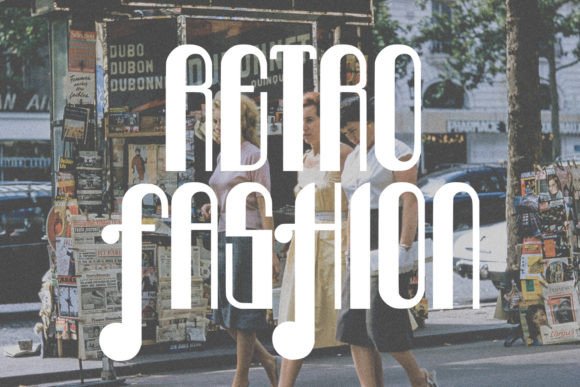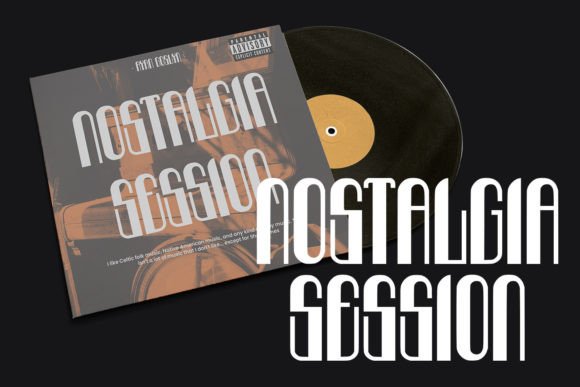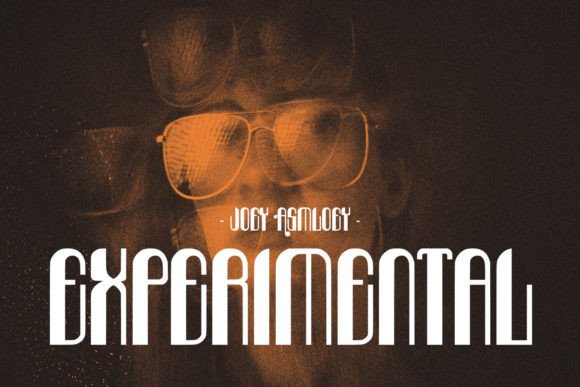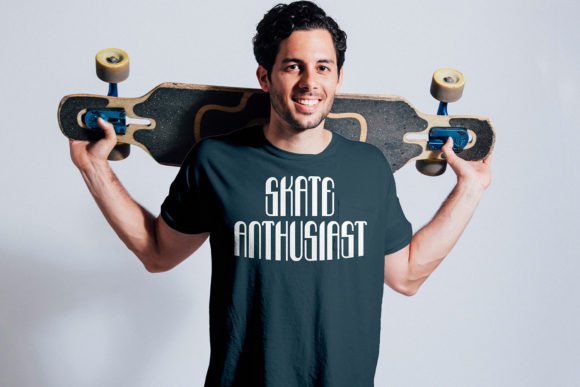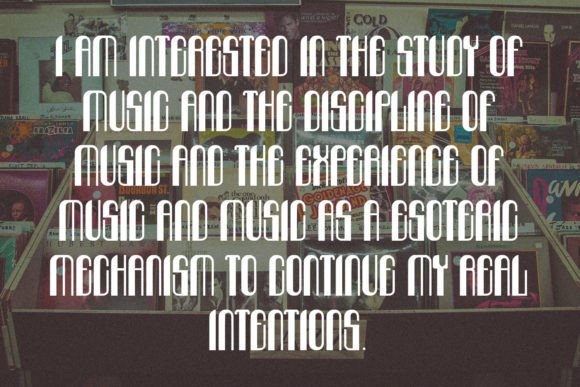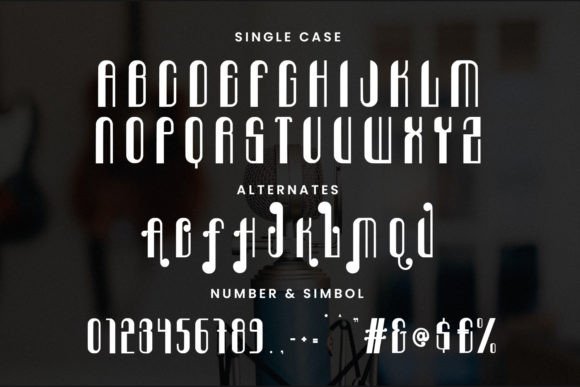
Asequek Font: The Ultimate Retro Display Font for Your Designs
Are you looking for a font that can add a touch of vintage charm to your designs and headlines? Look no further than Asequek, a cool and retro display font that’s sure to turn heads. With its unique, eye-catching design and quirky letterforms, Asequek is the perfect choice for designers and crafters who want to evoke a sense of nostalgia in their work.
The Retro Aesthetic of Asequek
Asequek’s design is inspired by vintage signage and posters, with bold lines and playful curves that capture the essence of retro aesthetics. Its uniquely-shaped letterforms are reminiscent of a bygone era, evoking memories of classic cartoons, old-school advertisements, and retro-themed decorations. Whether you’re designing a logo, a poster, or a social media graphic, Asequek is the perfect font to add a dash of nostalgia to your work.
What Makes Asequek So Special?
So, what sets Asequek apart from other display fonts on the market? Here are just a few things that make it so special:
- Unique letterforms: Asequek’s letterforms are unlike anything you’ve seen before. With their quirky shapes and bold lines, they’re sure to grab attention and add visual interest to your designs.
- Retro charm: Asequek’s retro aesthetic is unmistakable, making it perfect for designers who want to add a touch of vintage charm to their work.
- Versatility: Asequek is a highly versatile font that can be used for a wide range of design projects, from logos and posters to social media graphics and more.
How to Use Asequek in Your Designs
Ready to give Asequek a try? Here are a few tips for incorporating it into your designs:
- Use it as a headline font: Asequek is perfect for headlines and titles, where its bold lines and playful curves can really make an impact.
- Pair it with a simple font: For body text, pair Asequek with a simple, easy-to-read font to create visual contrast and make your design more readable.
- Experiment with colors: Asequek looks great in bold, bright colors, but it can also be used in more muted tones to create a more subtle look.
Why Designers and Crafters Love Asequek
So, why do designers and crafters love Asequek so much? Here are just a few reasons:
- It’s easy to use: Asequek is a straightforward font to use, with a simple and intuitive design that makes it easy to get started.
- It’s highly versatile: Whether you’re designing a logo, a poster, or a social media graphic, Asequek is a great choice.
- It’s fun and creative: Asequek’s quirky letterforms and retro aesthetic make it a joy to work with, and it’s sure to inspire your creativity.
In conclusion, Asequek is a fantastic retro display font that’s perfect for designers and crafters who want to add a touch of vintage charm to their work. With its unique letterforms, bold lines, and playful curves, Asequek is sure to turn heads and evoke a sense of nostalgia in your audience. So why not give it a try and see what amazing designs you can create?
Key Features of Asequek Font
- Retro display font: Asequek is a cool and retro display font with a unique, eye-catching design.
- Unique letterforms: Asequek’s letterforms are unlike anything you’ve seen before, with quirky shapes and bold lines.
- Vintage charm: Asequek’s retro aesthetic is perfect for adding a touch of vintage charm to your designs and headlines.
- Highly versatile: Asequek can be used for a wide range of design projects, from logos and posters to social media graphics and more.